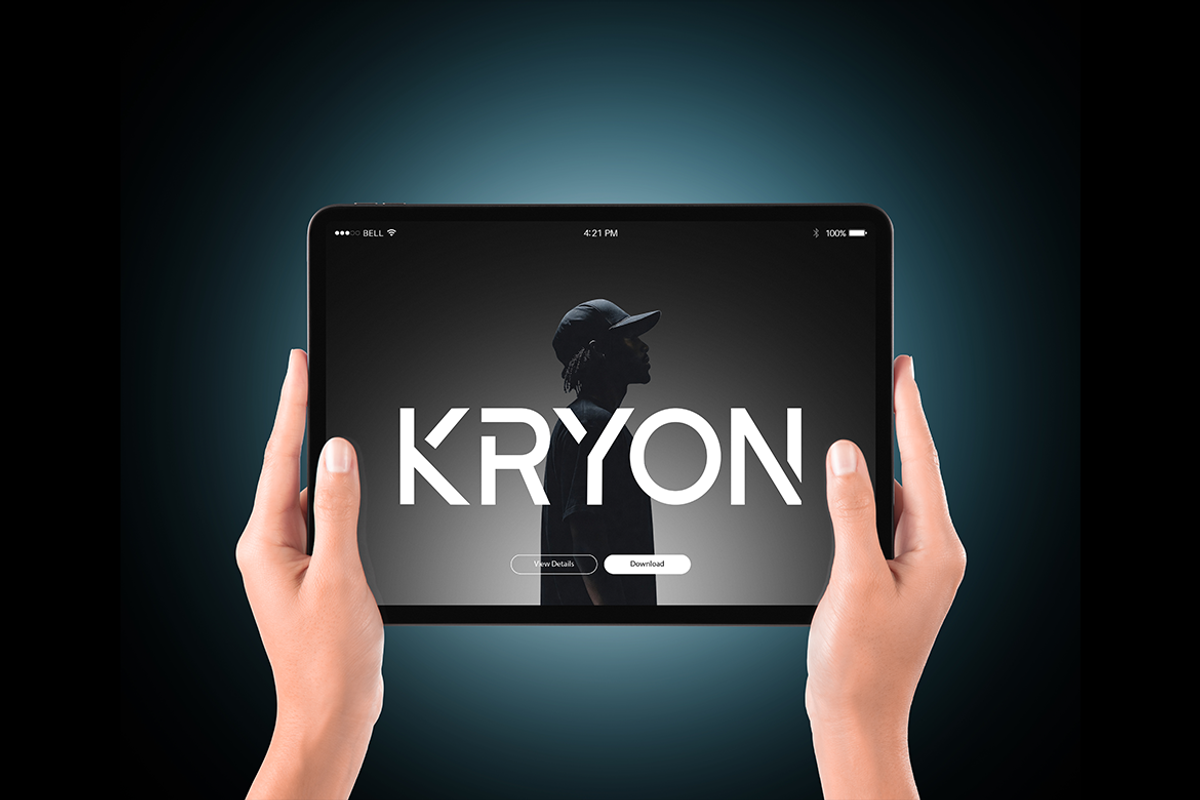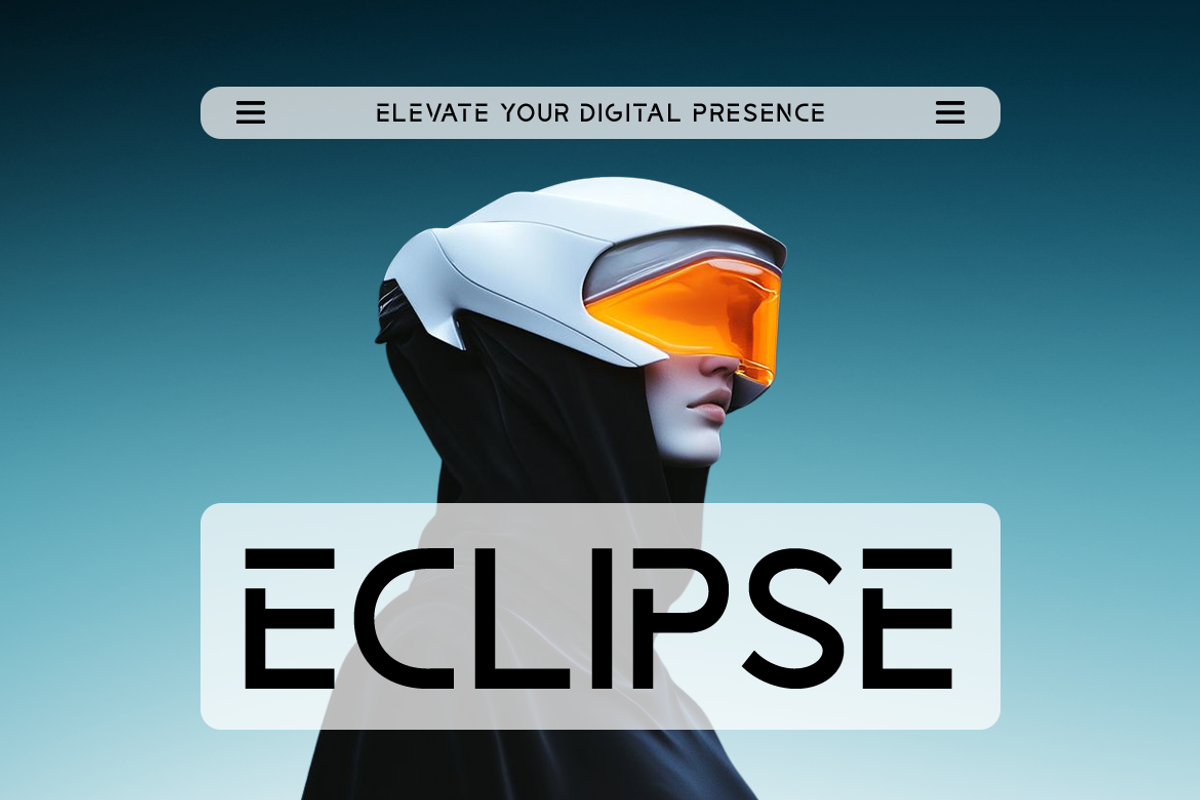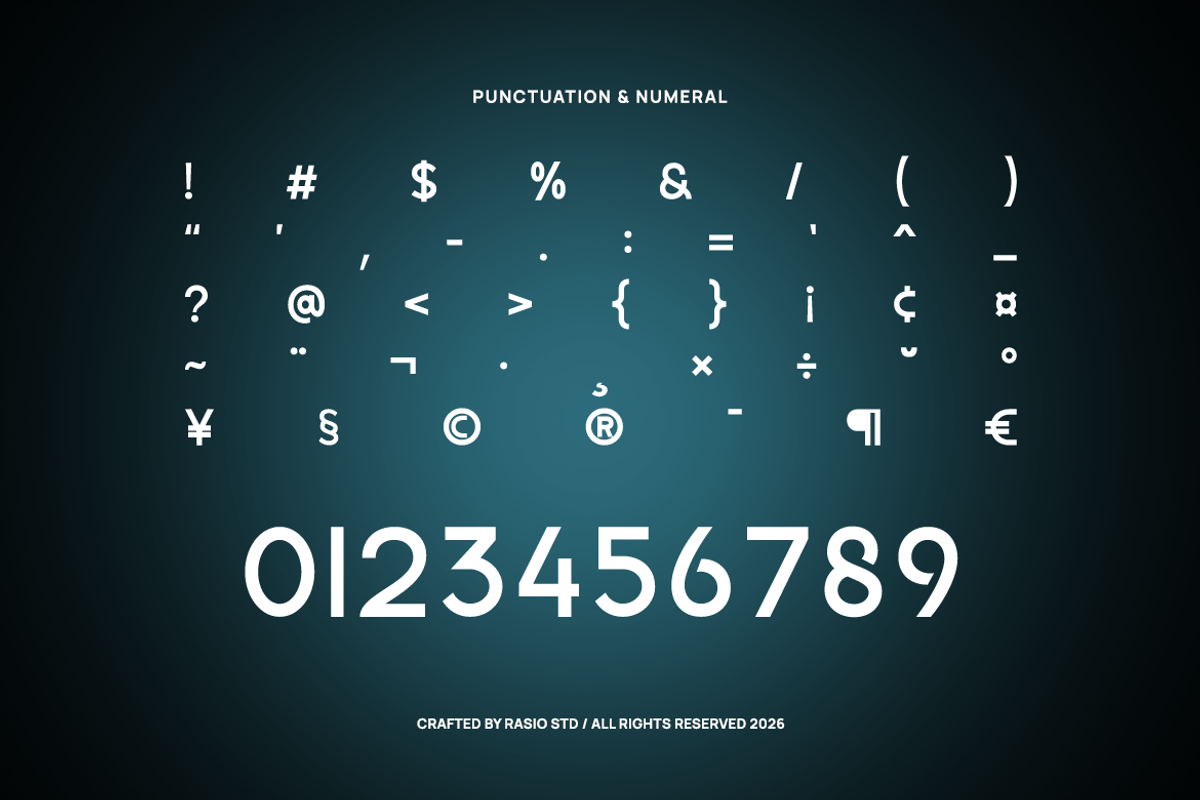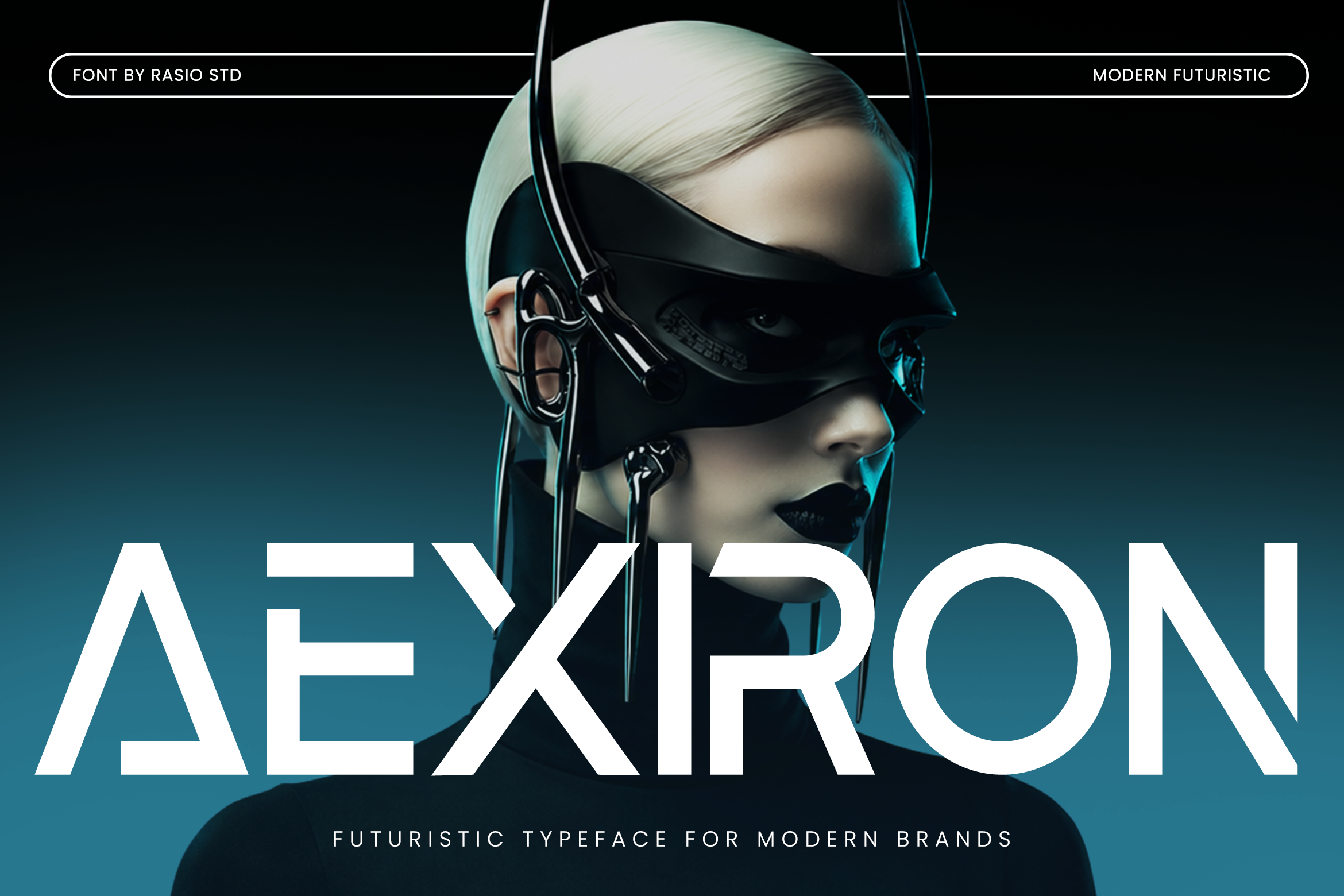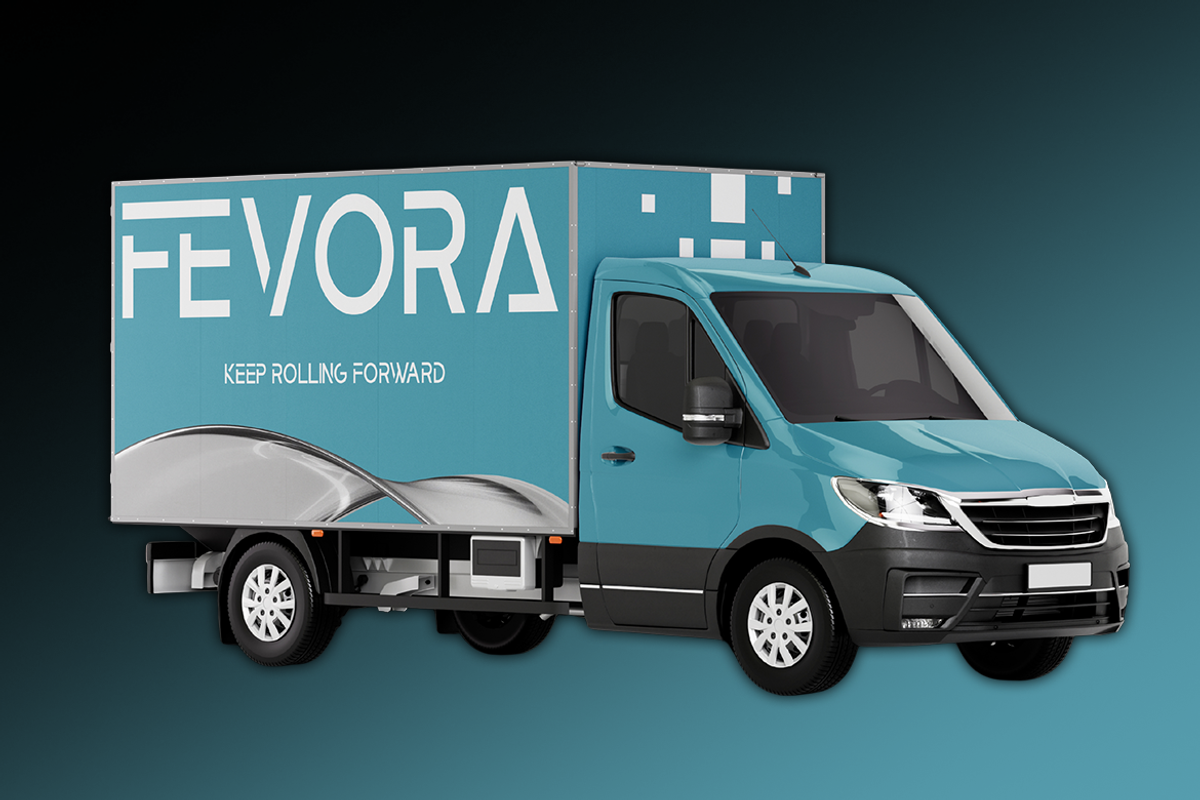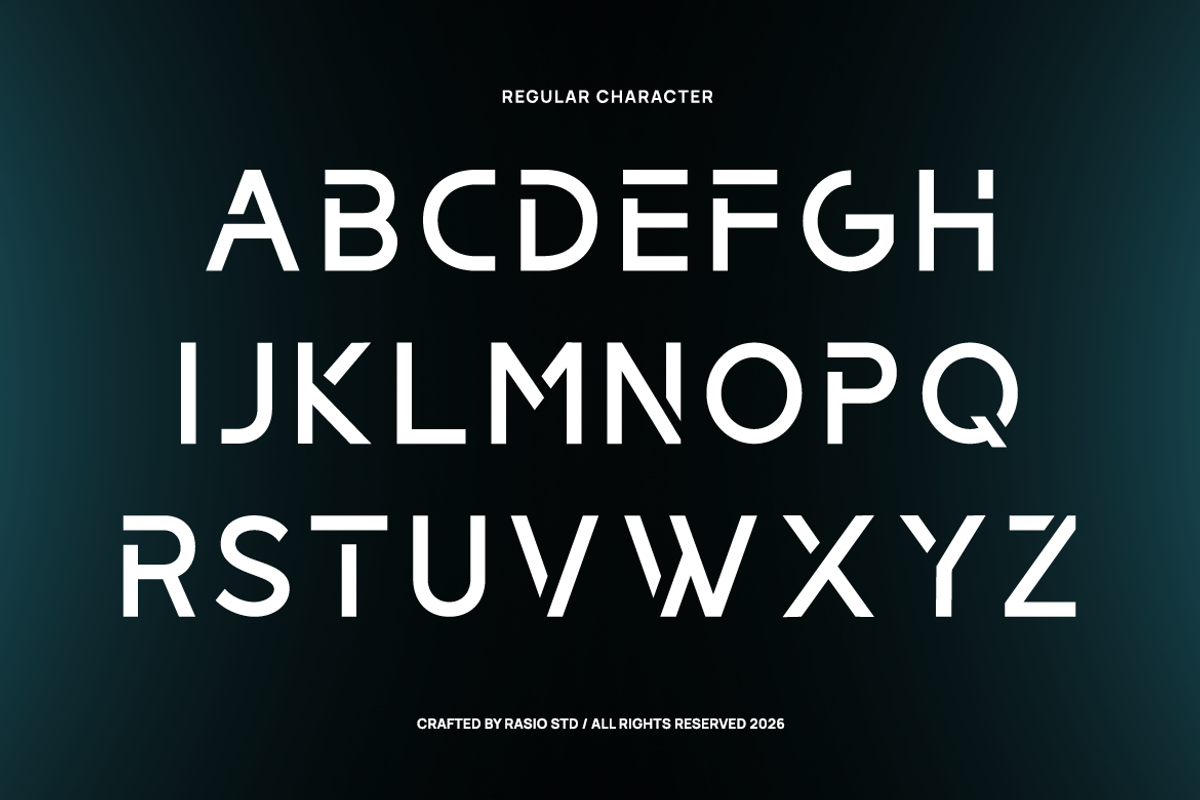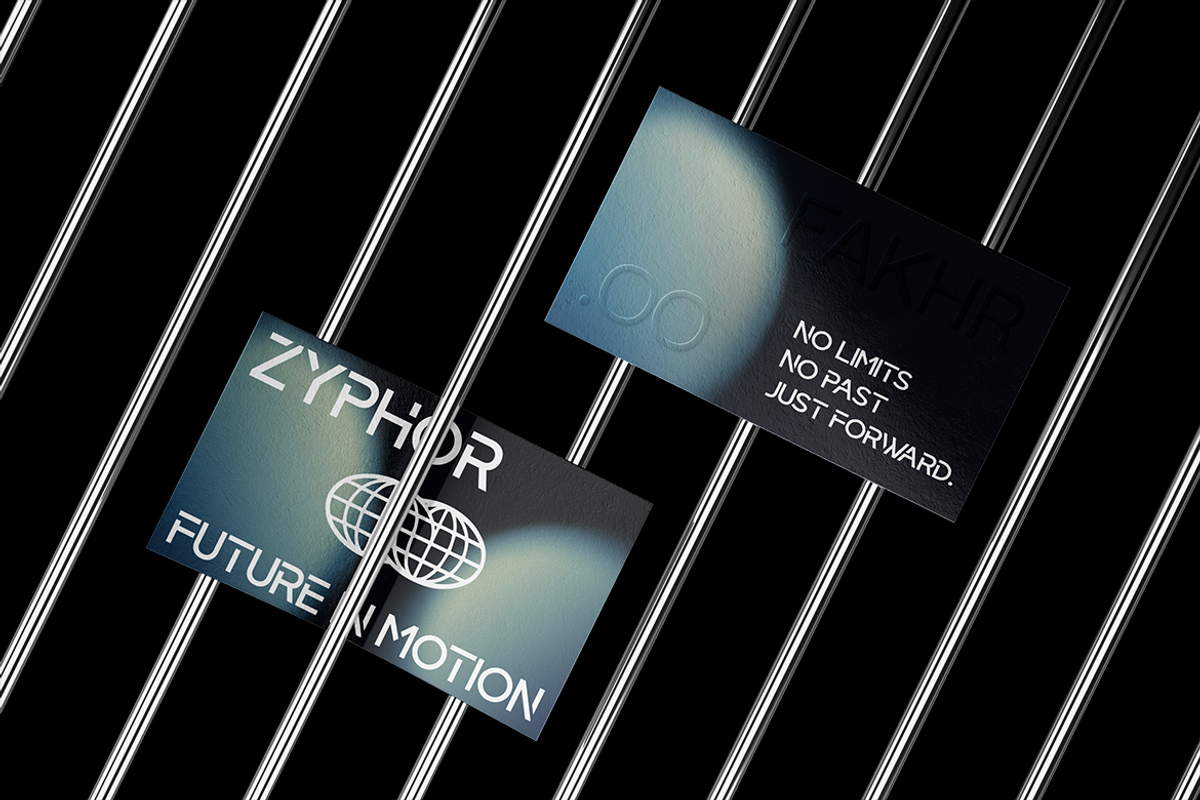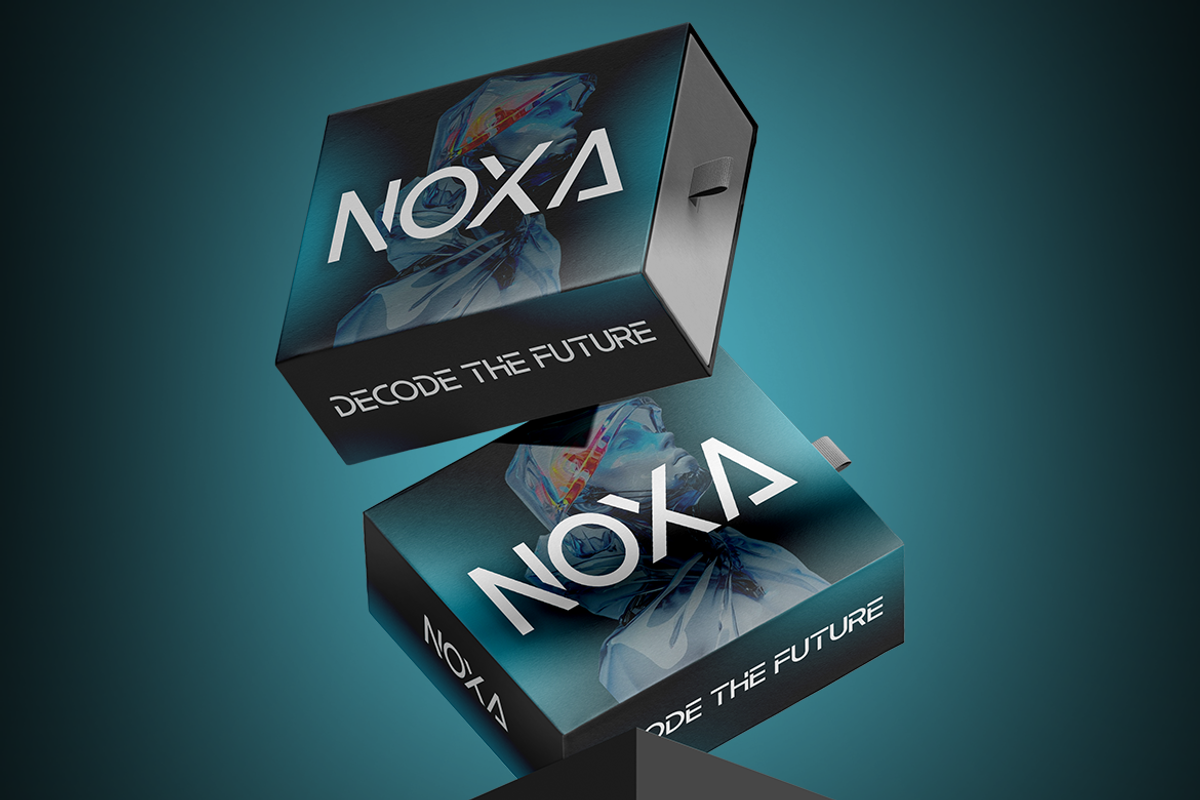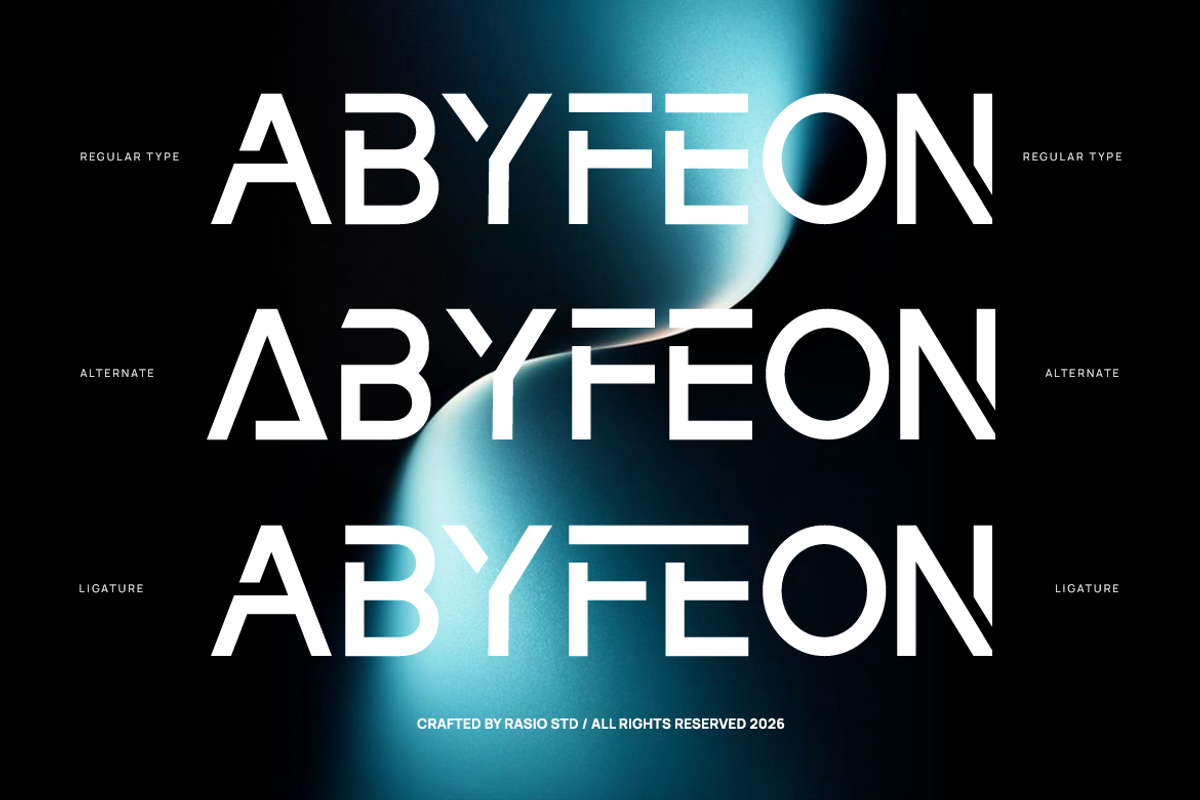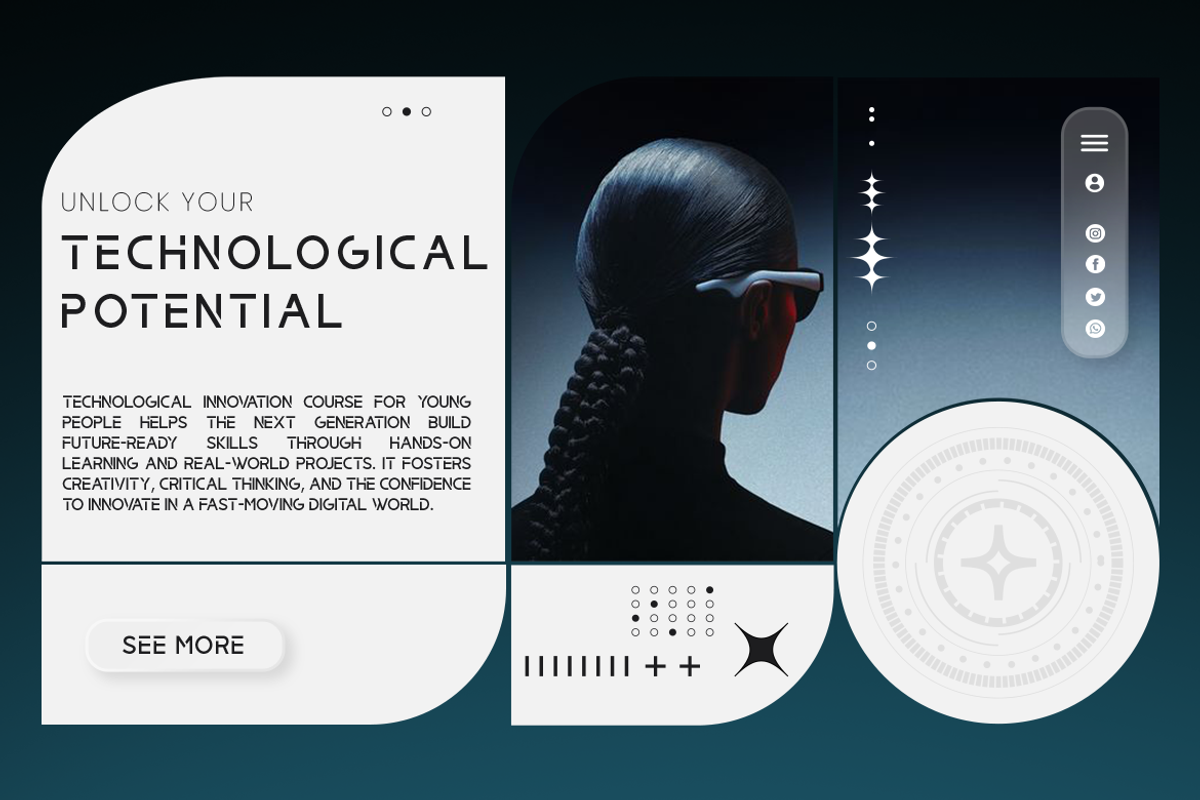
Aexiron Modern Futuristic Font
Aexiron Futuristic Tech Sans Serif showcases a sharp, modern typeface built with clean geometric construction and distinctive futuristic cuts that create a strong technological identity. The letterforms feature precise angles, unique character details, and balanced spacing, delivering a sleek and high-impact visual presence across digital and print media. This font includes uppercase, lowercase, numerals, punctuation, alternates, and ligatures.
Relevance and Use Cases is perfect for technology branding, startup identity, UI/UX interfaces, digital products, app design, web layouts, gaming visuals, sci-fi posters, innovation campaigns, corporate presentations, advertising graphics, and modern editorial design that requires a clean, futuristic, and high-impact typographic presence.
Futuristic geometric construction with sharp, angular cuts and precise symmetry
Minimal stroke contrast for a clean, high-tech and digital-forward appearance
Distinctive cut terminals and sliced letterforms creating a cyber aesthetic
Wide proportions with strong spacing for bold, impactful display presence
Streamlined shapes inspired by sci-fi interfaces and modern technology systems
Brand identity systems for technology, AI, and futuristic startups
UI/UX interfaces for digital platforms, apps, and software products
Tech-focused marketing visuals, landing pages, and presentations
Gaming, esports, and sci-fi themed graphics and branding
Social media content and digital campaigns with a modern futuristic tone
Screen-optimized kerning for responsive web design
Supports numerals, punctuation, and extensive symbol set